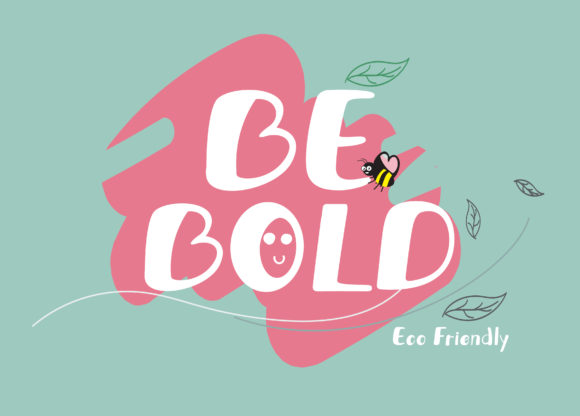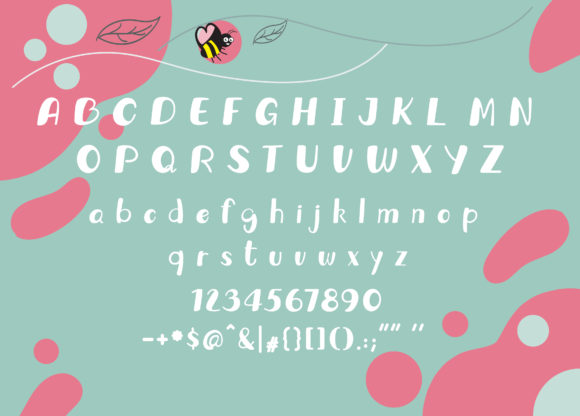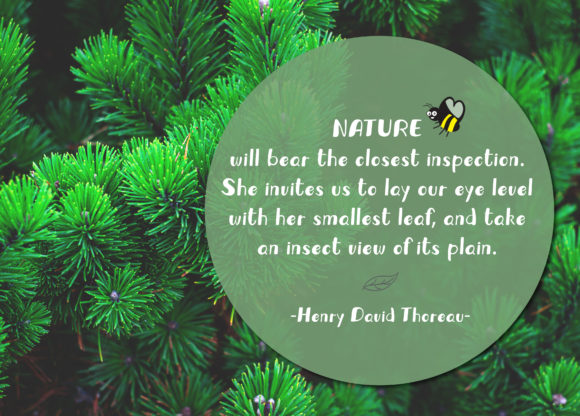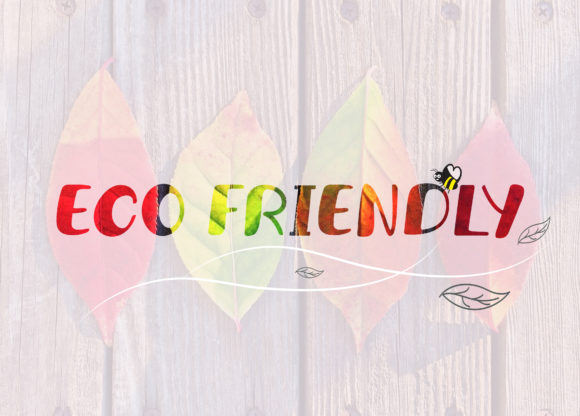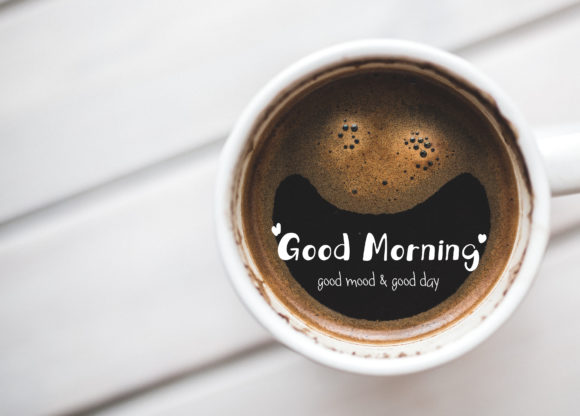
Be Bold Font
About Be Bold Font
Be Bold is a sweet and friendly handwritten font. Its playful feel makes this font particularly adept to any kids of school project. Add it to your creative ideas and notice how it brings them to life!